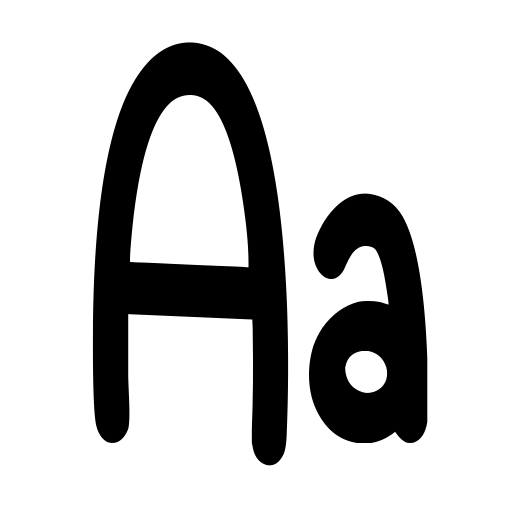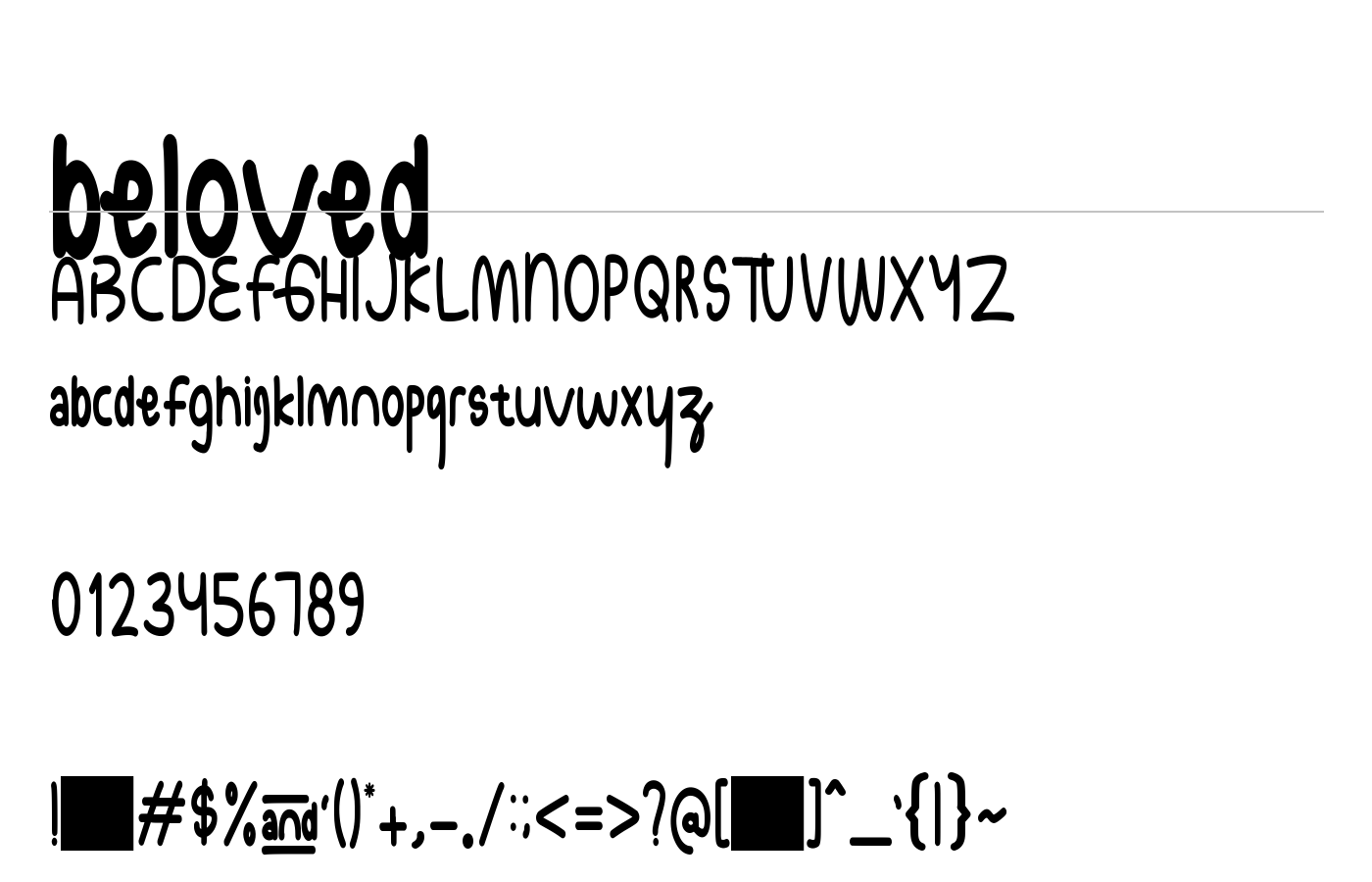
Beloved is a playful and casual sans serif font with a handwritten feel, featuring narrow, tall letterforms and a quirky, slightly uneven stroke style that adds character and charm. Its consistent medium weight and simple shapes make it highly legible while conveying a friendly, approachable personality, ideal for fun, informal designs such as children’s books, creative branding, and eye-catching headlines. This font works best where warmth and uniqueness are desired, giving designs a personal touch without sacrificing clarity.
beloved Font